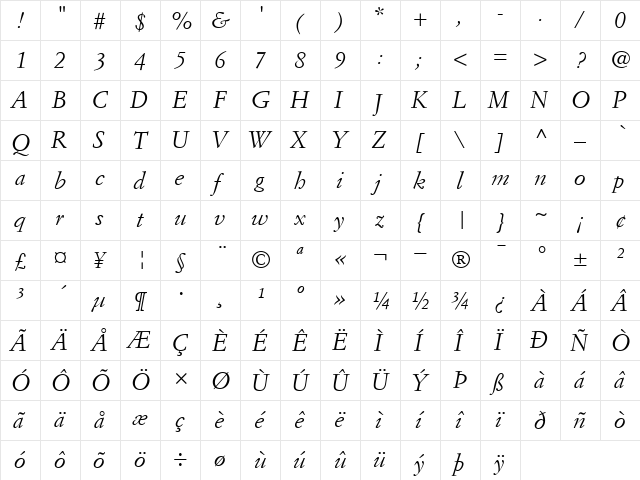
SimonciniGaramond RomanItalic
Design Context for SimonciniGaramond Typeface
SimonciniGaramond is a composed and adaptable typeface that performs quietly and consistently across a wide range of design contexts. The slanted form adds forward momentum and visual energy.
Pro Tip: Try SimonciniGaramond for annotation and caption copy alongside an upright companion — the contrast in angle creates a dynamic but ordered typographic system.